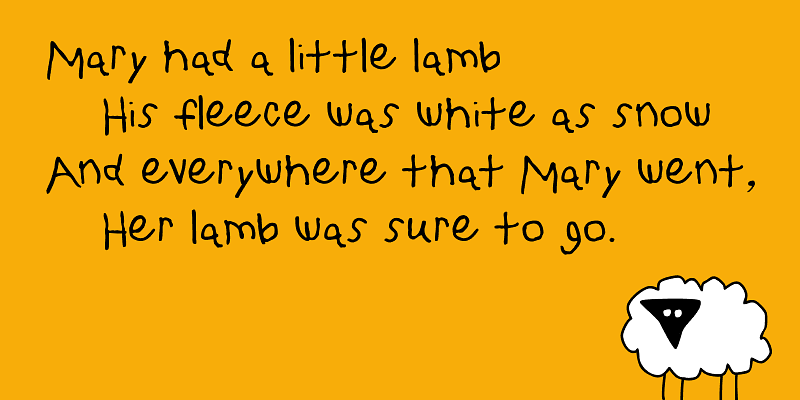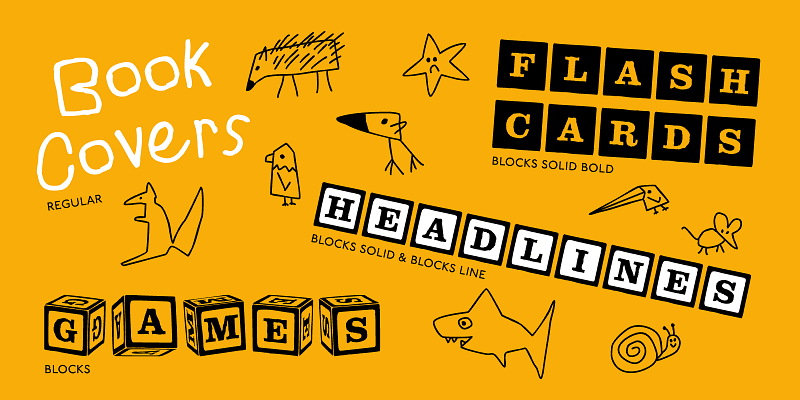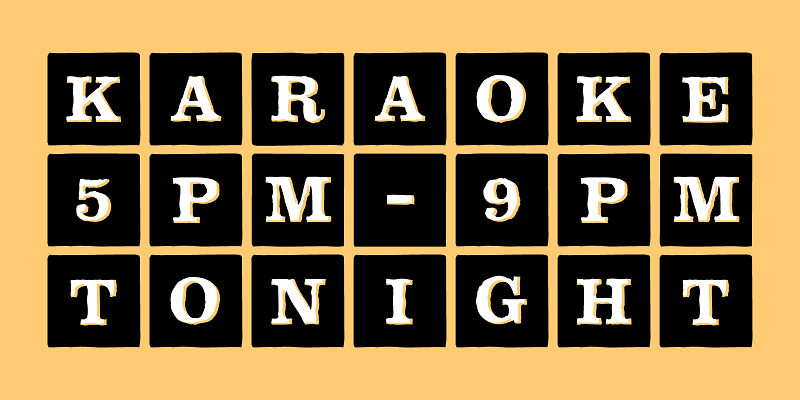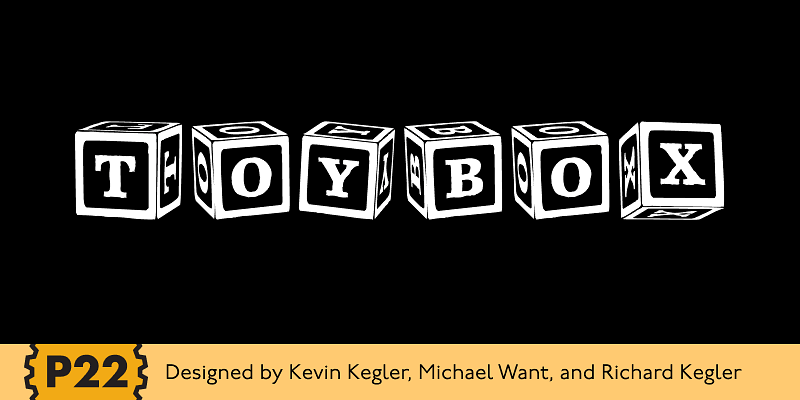
P22 ToyBox is a playful family based on a hand-drawn alphabet created by an honest-to-goodness five-year-old. Its naive, irregular forms bring a sense of wonder and spontaneity to the page. The fonts include charming letterforms, illustrated animals, and alphabet blocks in solid, bold, lined, and three-dimensional styles. Perfect for birthday party invites, educational materials, storybooks, or anything that calls for childlike energy and imaginative fun.